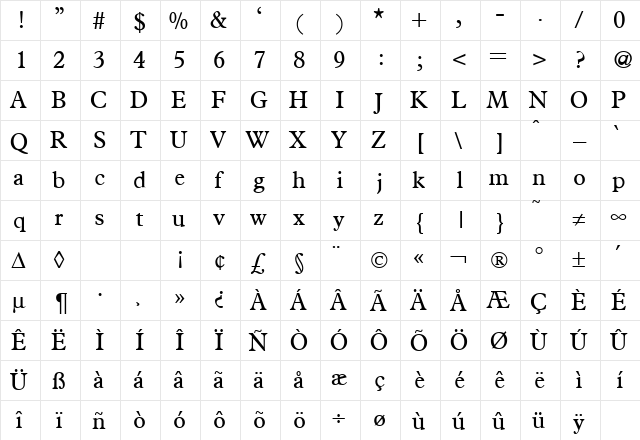
Placid Regular
Design Context for Placid Typeface
Placid offers clean, dependable letterforms without strong stylistic allegiance, making it a practical choice for designers who need flexibility.
Pro Tip: Pair Placid with a font of contrasting weight or personality to build a more expressive typographic hierarchy.